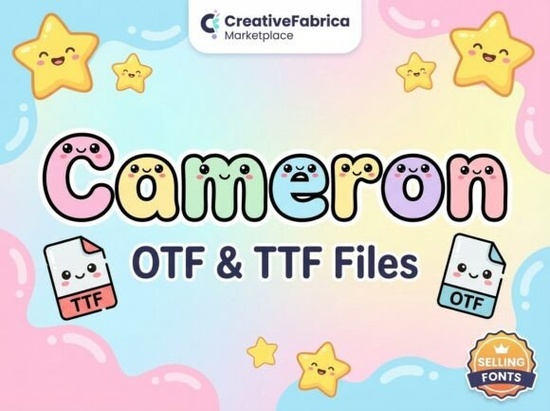
If you're looking for a display font that grabs attention without sacrificing elegance, the Cameron Font might be exactly what your next creative project needs. Designed with bold, artistic letterforms and intricate detailing, it’s built to stand out whether you’re crafting a logo, designing apparel, or laying out a social media graphic.
Unlike basic sans-serifs or overused script fonts, Cameron brings personality to every character. Its decorative style works especially well when typography is the main visual element, making it a favorite among designers who want their text to do more than just communicate it should captivate.
What kinds of projects work best with Cameron Font?
This font shines in applications where impact matters most. Here’s where it consistently delivers strong results:
- Poster design: Headlines using Cameron command attention in event flyers, movie posters, or motivational prints.
- Branding & logos: Creative studios, boutiques, or artisanal brands can use it to build a memorable visual identity.
- Apparel & merch: It translates beautifully onto T-shirts, hoodies, and tote bags especially for quote-based or lifestyle-focused designs.
- Social media content: Quotes, announcements, or promotional graphics pop in crowded feeds thanks to its distinctive shapes.
- Packaging: Adds a handcrafted, premium feel to product labels, boxes, or tags.
- Music & event art: Album covers, concert posters, and festival branding all benefit from its expressive flair.
How does it compare to other display fonts?
While many display fonts lean either ultra-modern or vintage, Cameron strikes a balance it feels contemporary but with artistic depth. If you’ve used fonts like Lumina Inline for clean minimalism or Kinder Classroom for playful warmth, Cameron offers something different: dramatic presence with refined detail.
It pairs well with simpler typefaces for body text, letting headlines take center stage without overwhelming the overall layout. For those who enjoy hand-lettered aesthetics but need vector precision, it’s a practical alternative to custom illustration.
- Consider readability: Use Cameron for short phrases or headlines not body text.
- Test pairings: Try it alongside neutral sans-serifs like Helvetica or Lato for contrast.
If your goal is to create visuals that stop scrollers, impress clients, or give your brand a distinctive voice, Cameron Font offers both beauty and practicality. It’s not just decorative it’s designed to work hard in real-world creative projects.